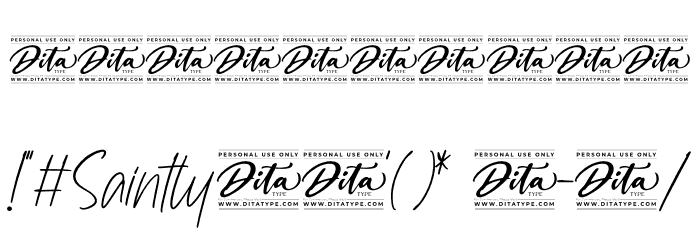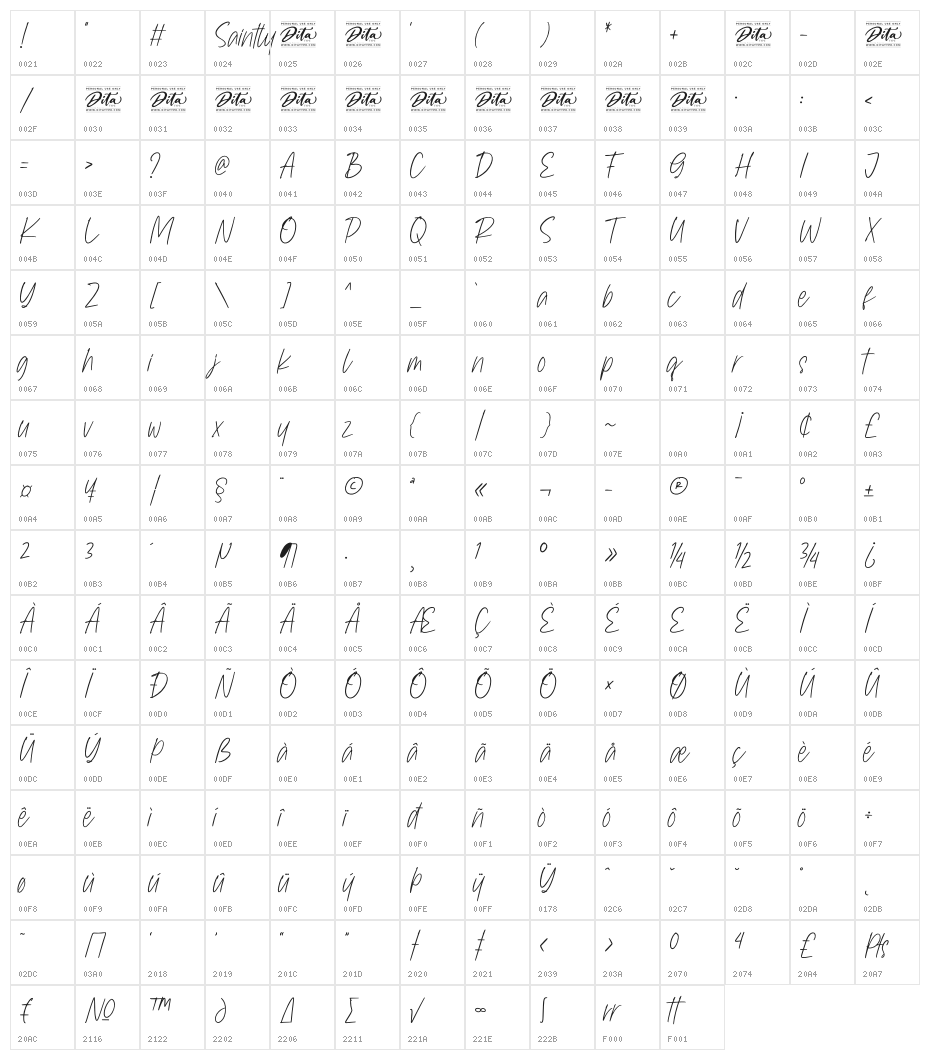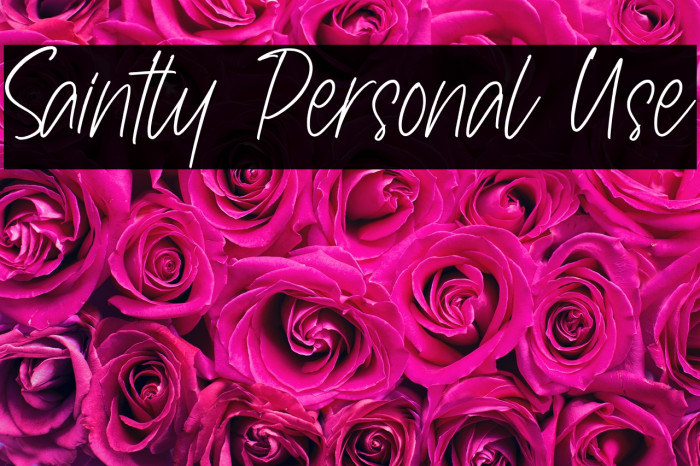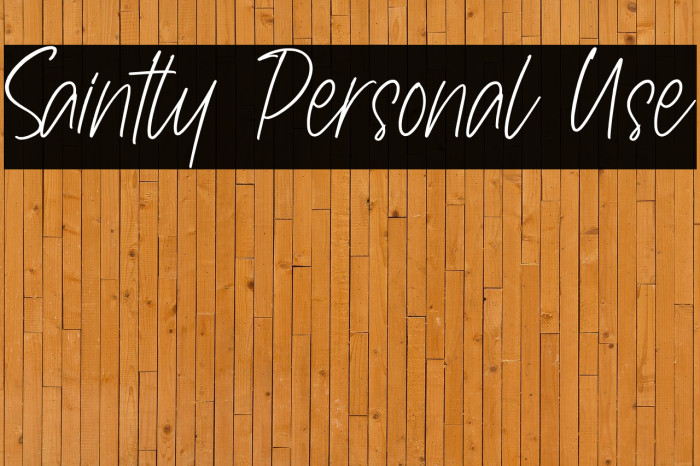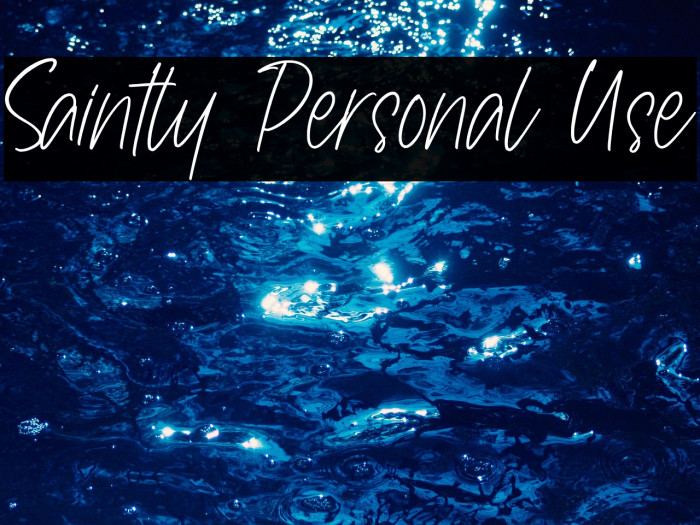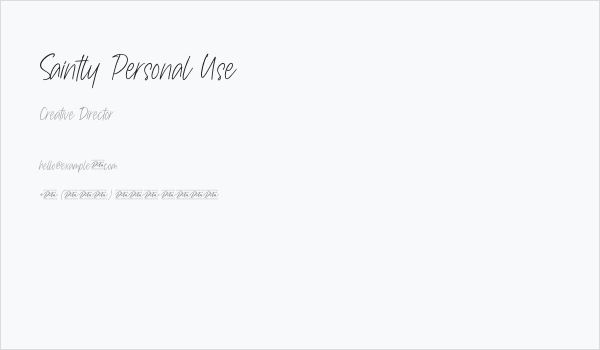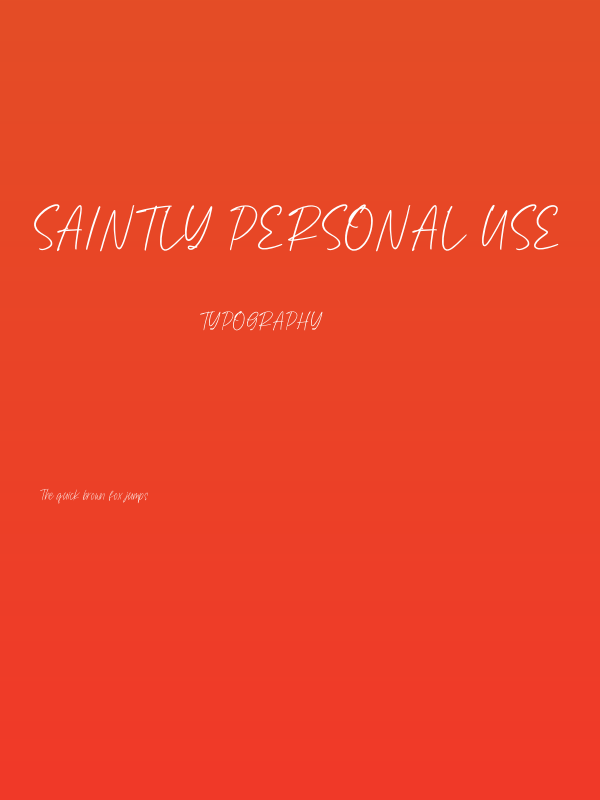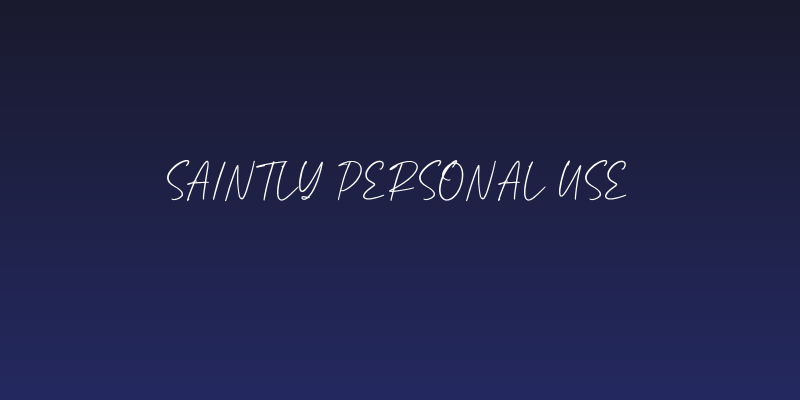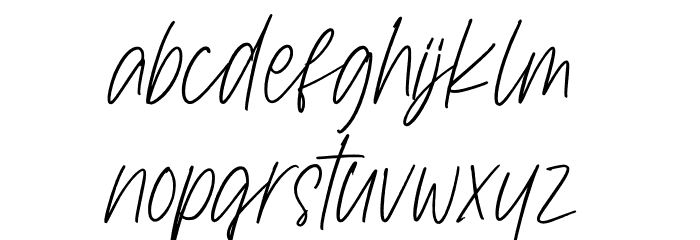
Saintly Personal Use Font
Saintly Personal Use Description
This font features a handwritten style with a casual and flowing appearance. The letters are slightly slanted, giving it a dynamic and lively feel. The strokes are consistent in width, providing a uniform look across all characters. The uppercase letters are tall and elegant, while the lowercase letters maintain a smooth and connected script style. This font includes a full set of uppercase and lowercase letters, numbers, and a selection of special characters. Its playful yet sophisticated design makes it suitable for a variety of creative projects.
Overall StyleCasual
Use CaseLogos, Headlines, Invitations
Proposed ProjectsIdeal for greeting cards, invitations, personal branding, and social media graphics.